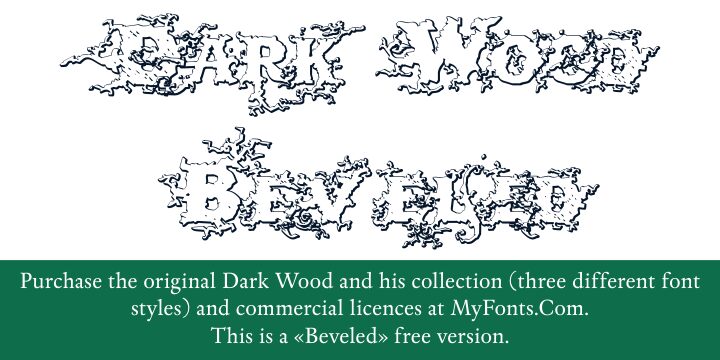
DarkWood Beveled by Paulo W of Intellecta Design is a free decorative outlined font with broad, tangled letterforms. Its contours twist like splintered branches, with irregular notches and thorny offshoots breaking up the silhouettes. The effect is deliberately unruly.
Designers working in horror, dark fantasy, or underground music can use it for posters, game graphics, and album covers. The branch-like edges let the lettering become part of a forest, ruin, or monster-themed illustration rather than merely labeling it.
DarkWood Beveled by Intellecta Design is a free beveled version.